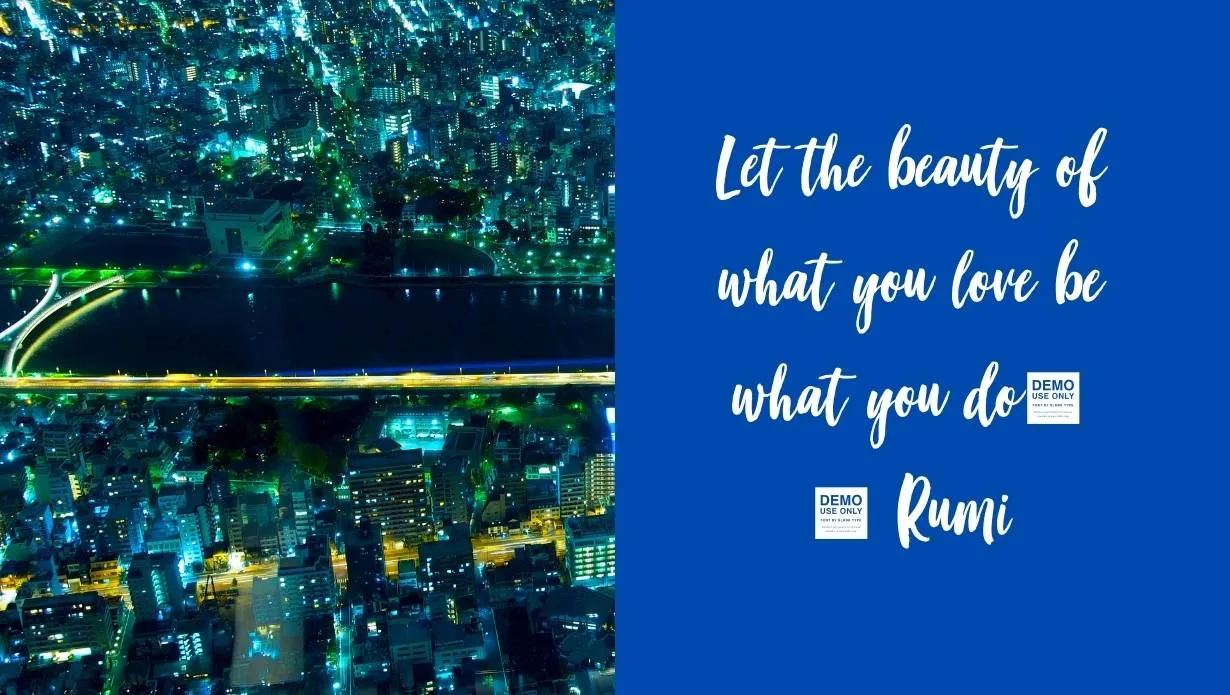
Good Vibes Font is a great font for those who want to add a touch of fun and personality to their projects. This tremendous typeface was designed by a famous designer Peter Olexa. It belongs to the Script font family. This awesome Font family includes four different fonts: Regular, Italic, Bold, and Bold Italic. It is specified by the CSS and SVG.
You can use this Font for a range of projects, including invitations, headers, posters, and more. It is a script-typeface with a unique, hand-drawn look.
Good Vibes Font Family
The letters have a bouncy, curved appearance that makes them appear as if they are dancing on the page. Stay outside font is closest to this font family.